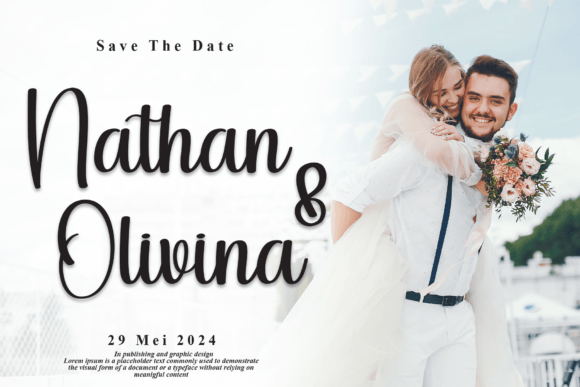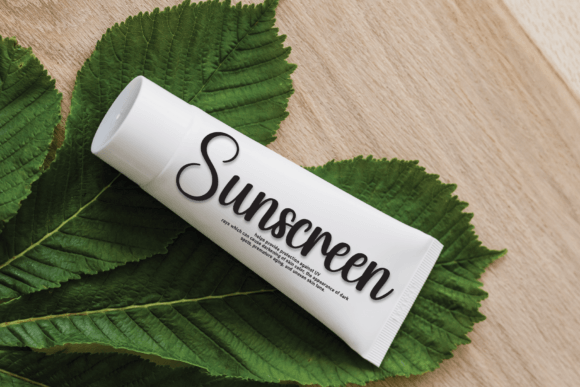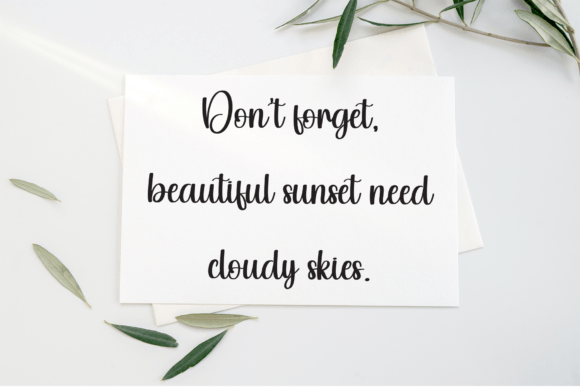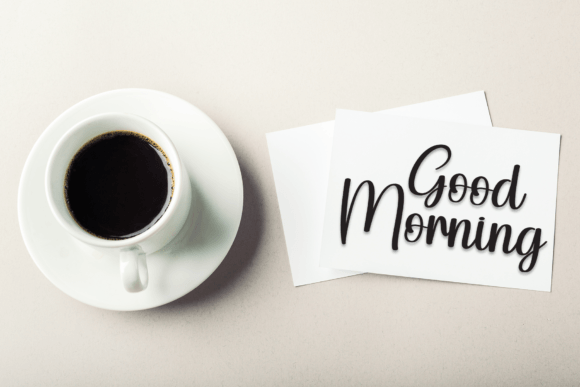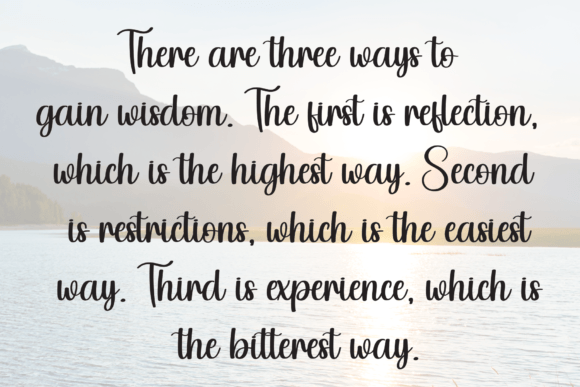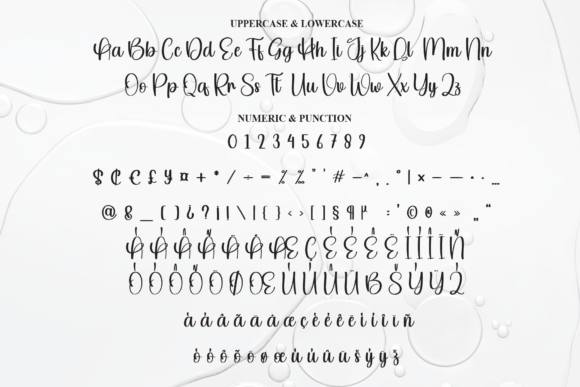
The Sweet Charm of Bubble Font: A Designer’s Delight
I’ll never forget the time I was working on a wedding invitation project, and my client asked for a font that was “fun, yet elegant.” I scoured the internet, tried countless fonts, but nothing seemed quite right. That was until I stumbled upon Bubble Font – a sweet and friendly handwritten font that instantly captured the playful, romantic vibe I was looking for.
A Personal Review: What I Love About Bubble Font
So, what makes Bubble Font so special? Here are a few things that I absolutely adore:
• ✨ Cute and versatile: This font is perfect for a wide range of design projects, from wedding invitations and cards to social media graphics and more.
• ✅ Elegant yet playful: Bubble Font strikes the perfect balance between sophistication and whimsy, making it ideal for designers who want to add a touch of personality to their work.
• 💕 Handwritten charm: The font’s handwritten feel adds a warm, personal touch to any design, making it perfect for projects that require a bit of emotional connection.
While Bubble Font is an amazing addition to any designer’s toolkit, there are a few minor quirks to be aware of:
• 🤔 Limited character set: While the font has a wide range of characters, it may not have every special character or glyph you need. Be sure to check the font’s capabilities before committing to a project.
• ⚠️ Not suitable for body text: Due to its playful, cursive nature, Bubble Font is best used for headlines, titles, or short paragraphs. It may not be the best choice for longer blocks of text.
The Story Behind Bubble Font
Bubble Font was designed by a talented type designer who wanted to create a font that captured the sweetness and playfulness of handwritten text. Inspired by childhood memories of writing letters to friends and family, the designer aimed to create a font that would bring a smile to people’s faces. And with its cute, bubbly personality, Bubble Font is sure to do just that!
Is Bubble Font suitable for body text? While Bubble Font is beautiful, it’s best used for headlines, titles, or short paragraphs. For longer blocks of text, a more traditional font might be more suitable.